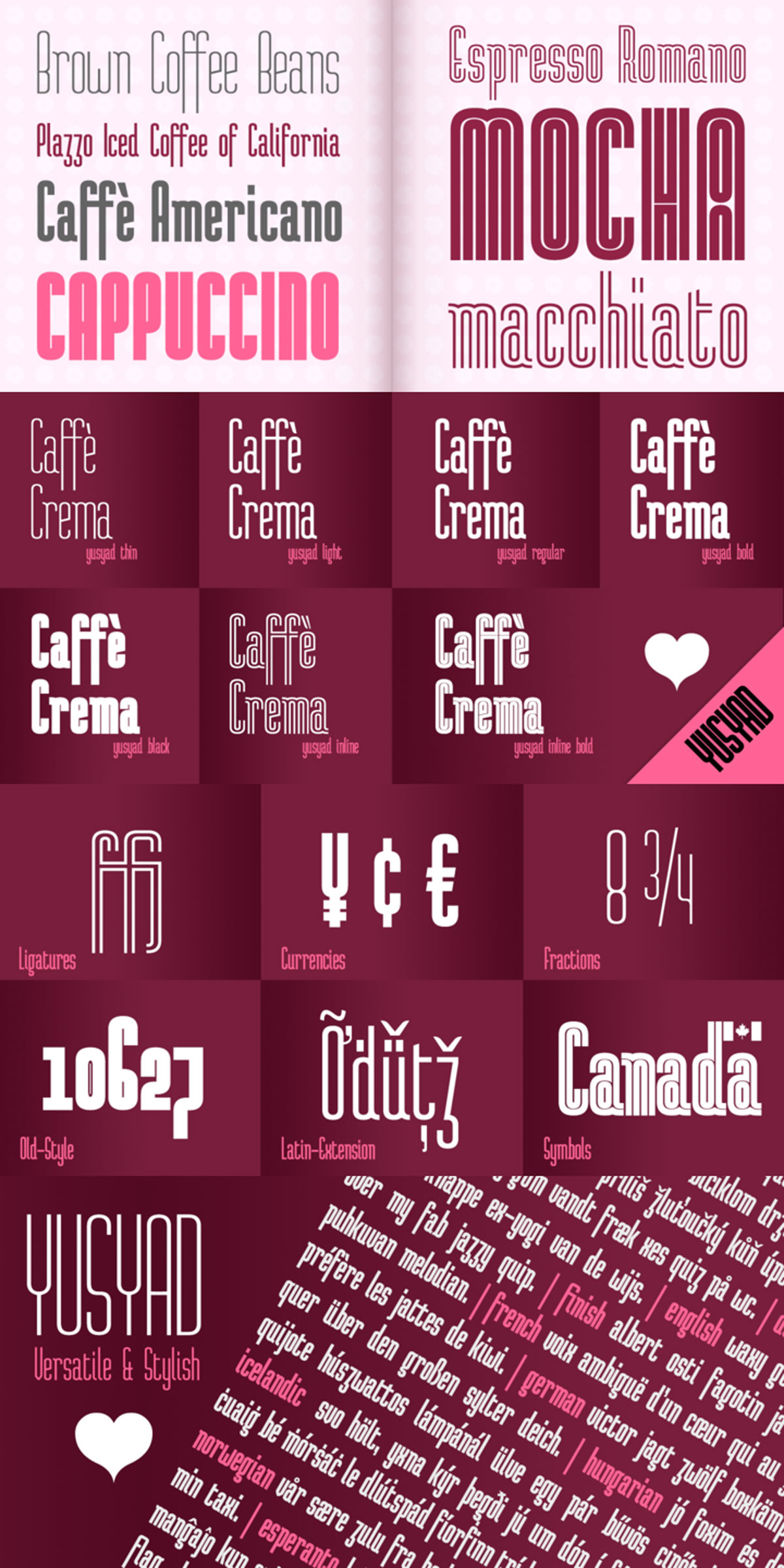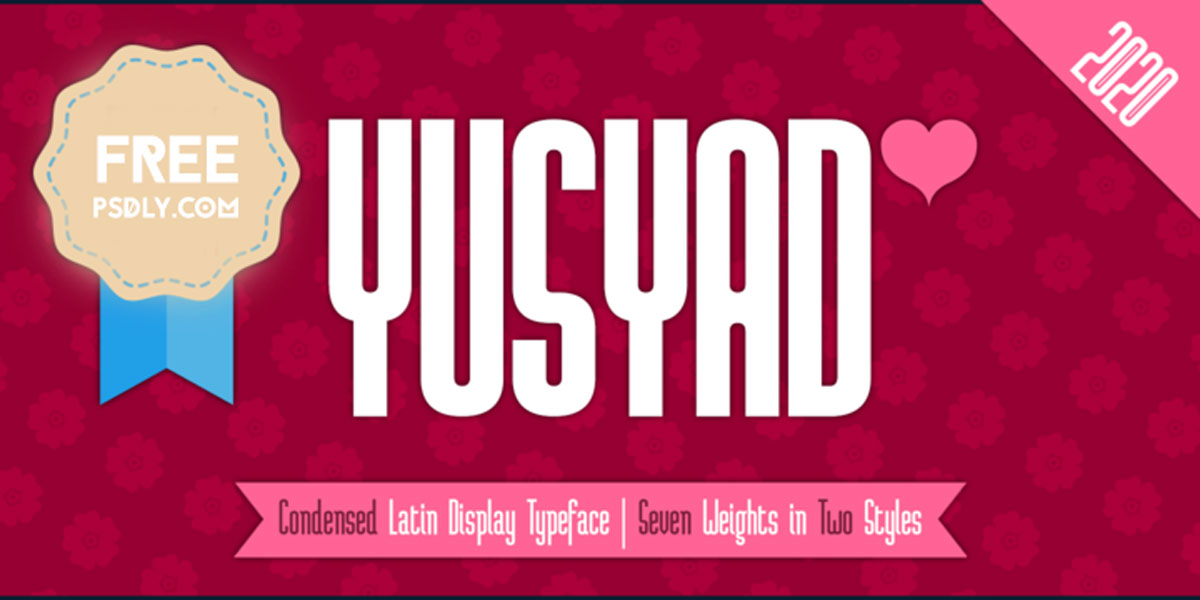
Yusyad Font Family
Metaphorically, it is a modest artistic gift offered virtually from the designer to one of his beloved and cherished persons in this life, namely, his loyal and devoted wife. She represents one of the most essential motives for many artistic and non-artistic works that the designer achieved during his life.
This was done through her tranquil personality, infinite patience, sincere support, and endless encouragement. The designer’s partner (i.e., the significant other) lives with him along with their three children looking both always for a life full of peace, achievements, philanthropy, and of course love.
The typeface’s name Yusyadis a portmanteau word consists of two morphemes. It is a simple name-meshing for two different names.
Those names represent the name of the designer’s wife (Yusra) and the name of the designer (Eyad). Yusyadis like an epithet that ties the two partners’ honest and eternal relationship until the last day of their lives.
Technically, Yusyadis a sans-serif condensed and display typeface. It comprises seven fonts with dual styles and multiple weights. Specifically, it has two main styles, namely, the normal and the inline design.
The normal style comes in five weights (i.e., thin, light, regular, bold, and black) whereas the inline style has two weights (i.e., regular and bold). The typeface is designed with more than 700 glyphs or characters.
Its character set supports nearly most of the Central, Eastern, and Western European languages using Latin scripts including the Irish and the Vietnamese languages.
The typeface is appropriate for any type of typographic and graphic designs in the web, print, and other media.
It is also absolutely preferable to be used in the wide fields related to publication, press, services, and production industries.
It can create a very impressive impact when used in movies’ or TV-series titles, posters, products’ surfaces, logos, signage, novels, books, and magazines covers, medical packages, as well as the product and corporate branding.
It has also both lining and old-style numerals which makes it more suitable for any printing or designing purposes.
To end, Yusyad’s condensed appearance—especially the inline style—makes it very memorable, eye-catching, and striking for advertising, marketing, and promotional purposes.